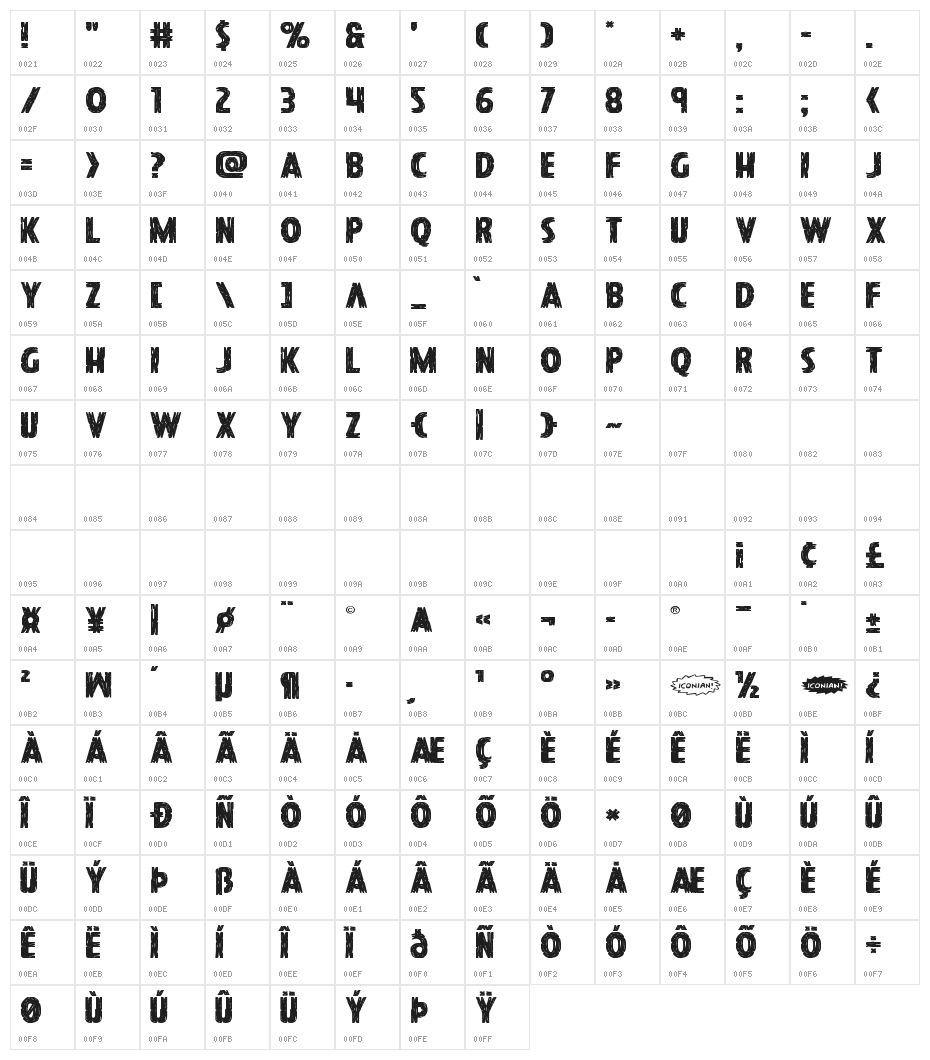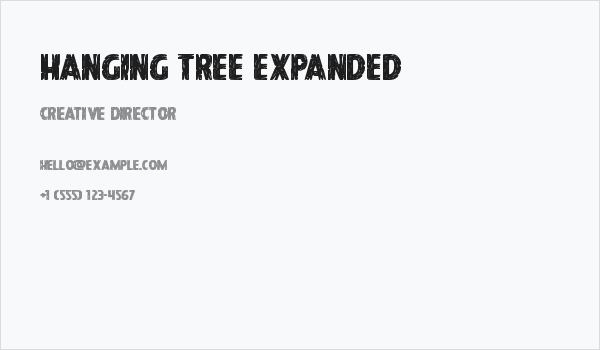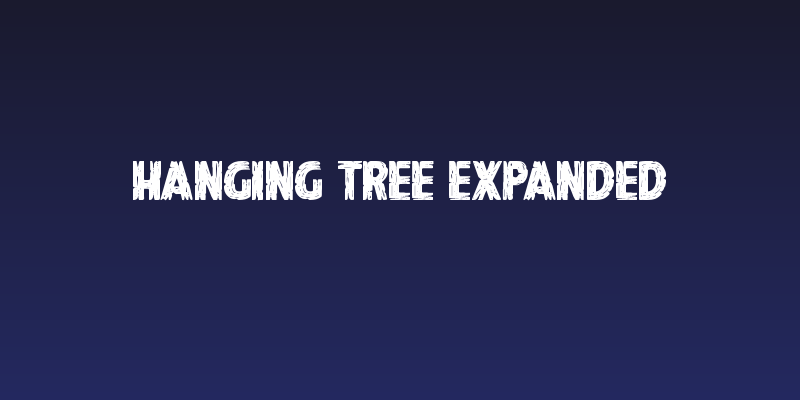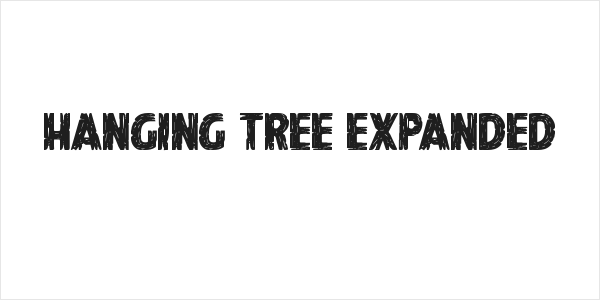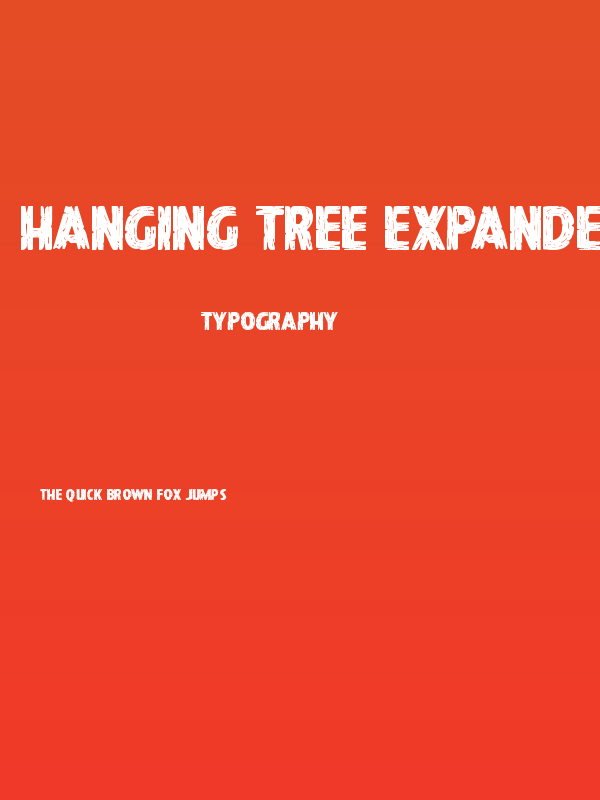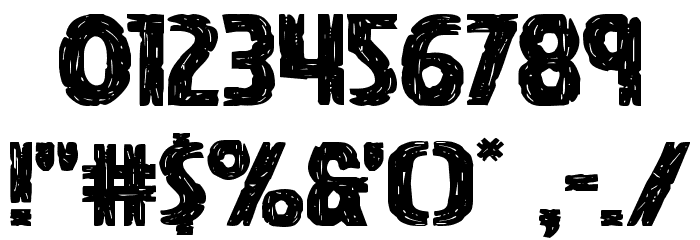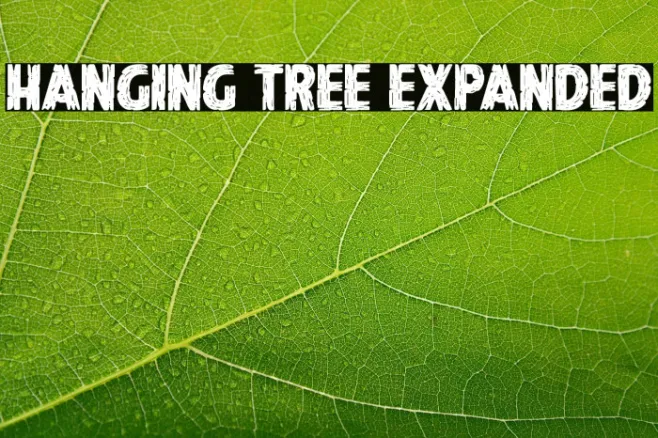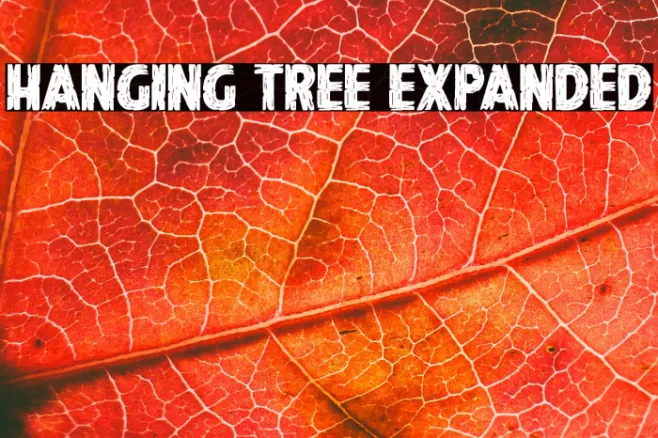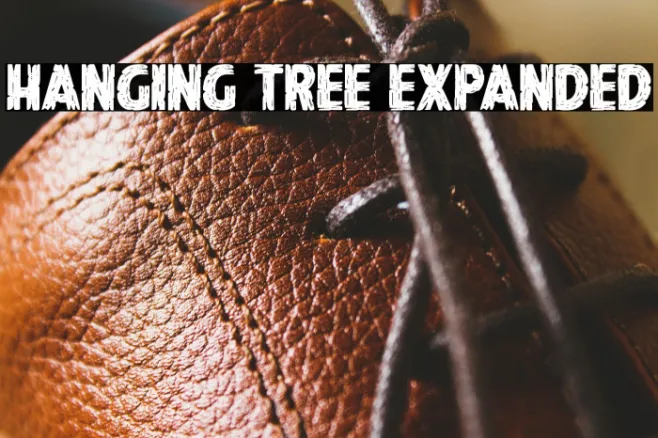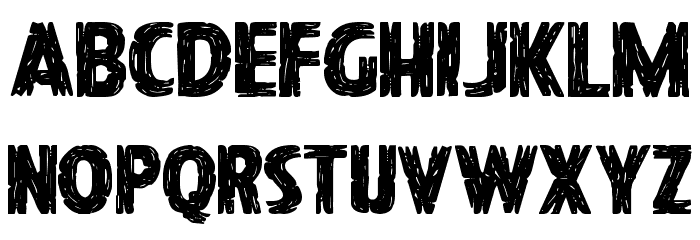
Hanging Tree Expanded Font
Hanging Tree Expanded Description
This font features a bold, distressed style with a hand-drawn appearance. The characters are thick and rugged, with uneven edges that give them a textured, organic look. The uppercase and lowercase letters maintain a consistent style, with a slightly condensed form that enhances their boldness. The numbers and special characters follow the same design, ensuring a cohesive appearance across all glyphs. This font's unique, rough texture makes it stand out, adding a touch of edginess and creativity to any design.
HANGING-TREE-EXPANDED UPPERCASE
HANGING-TREE-EXPANDED LOWERCASE
HANGING-TREE-EXPANDED OTHER CHARS
| Proposed Projects | Ideal for posters, album covers, branding projects, and any design requiring a bold, artistic touch. |